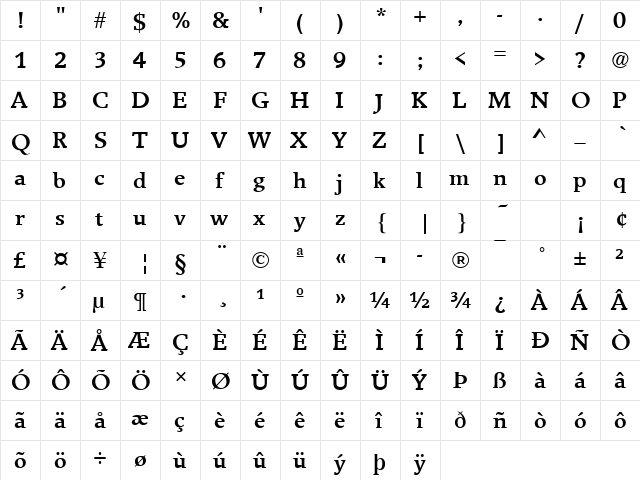
BreughelT Bold Font Preview
BreughelT Bold
BreughelT Bold Font Details
Design Context for BreughelT Typeface
BreughelT is a composed and adaptable typeface that performs quietly and consistently across a wide range of design contexts. Its bold stroke weight gives it real presence on the page.